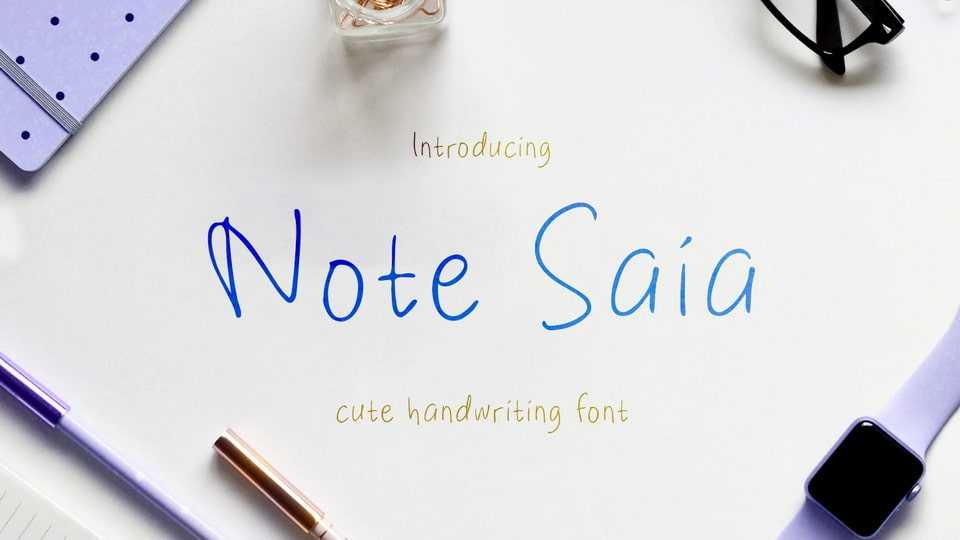
Download Note Saia font, a simple and cute handwritten typeface that’s perfect for notes and personal messages. It features friendly, casual letterforms with gentle curves and a relaxed style.